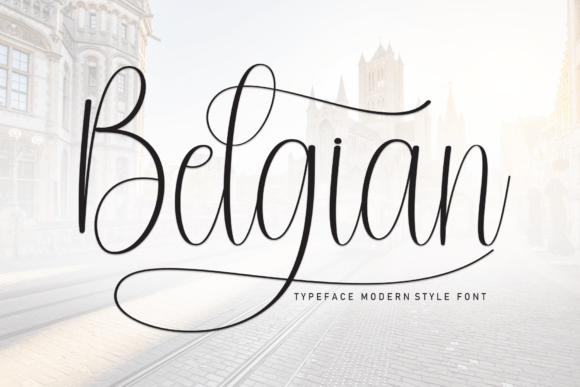
**Belgian Font: The Playful Script Font That'll Add a Touch of Delight to Your Designs**
In a world of ordinary fonts, let Belgian Font be your beacon of creativity. This charming handwritten display font, crafted by the talented William Jhody, is a symphony of sweetness and friendliness, ready to infuse your designs with a dash of joy.
With its playful curves and cheerful strokes, Belgian Font is the perfect choice for those seeking a touch of whimsy in their projects. Picture your wedding invitations adorned with this delightful font, each letter dancing across the page like a ray of sunshine. Or, envision your cards and posters bursting with personality, as Belgian Font adds a burst of charm to every word.
Its versatility knows no bounds. Whether you're a seasoned designer or just starting your creative journey, Belgian Font will be your trusty companion. Its friendly demeanor makes it ideal for any project that calls for a touch of playfulness and warmth.
So why settle for ordinary when you can have extraordinary? Let Belgian Font ignite your creativity and transform your designs into works of art. Embrace its playful spirit, let your imagination run wild, and create something truly remarkable.
**Unleash the magic of Belgian Font today and let your designs shine with joy!**